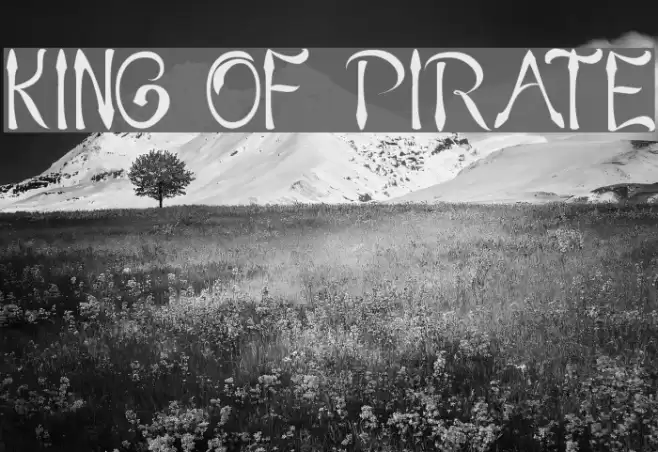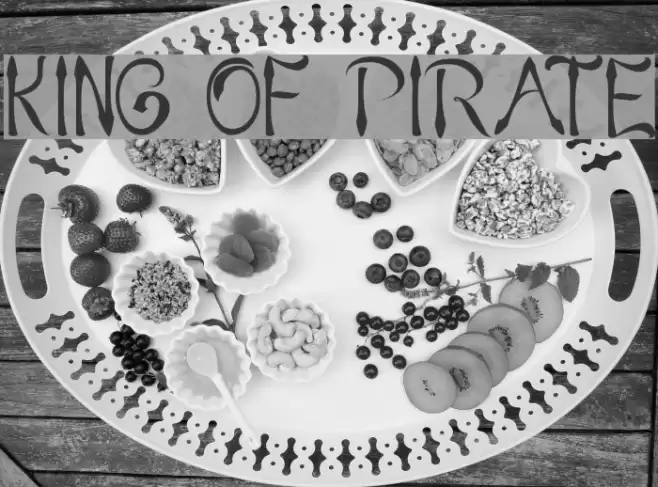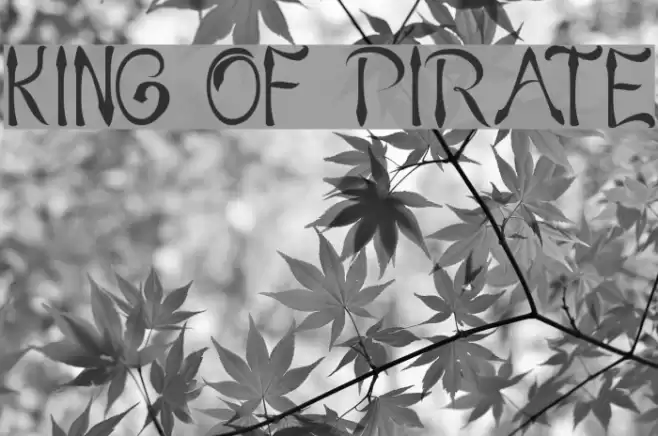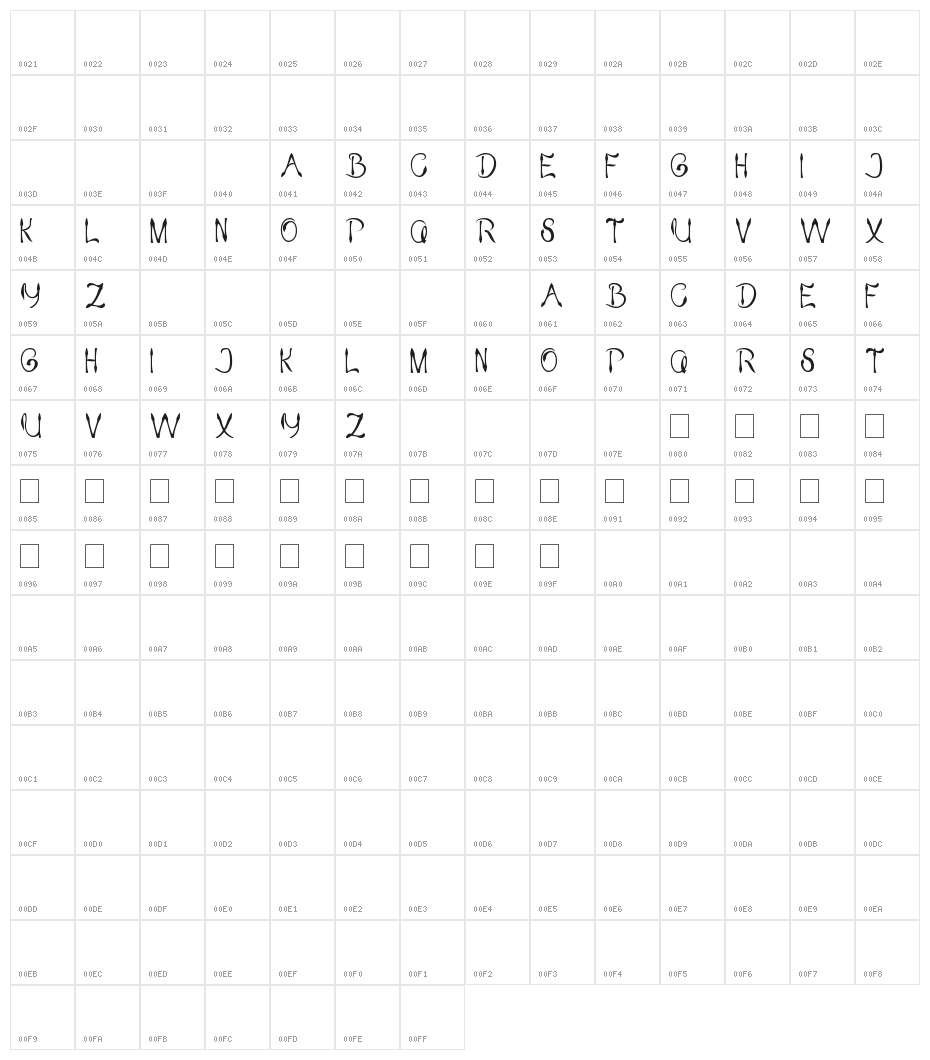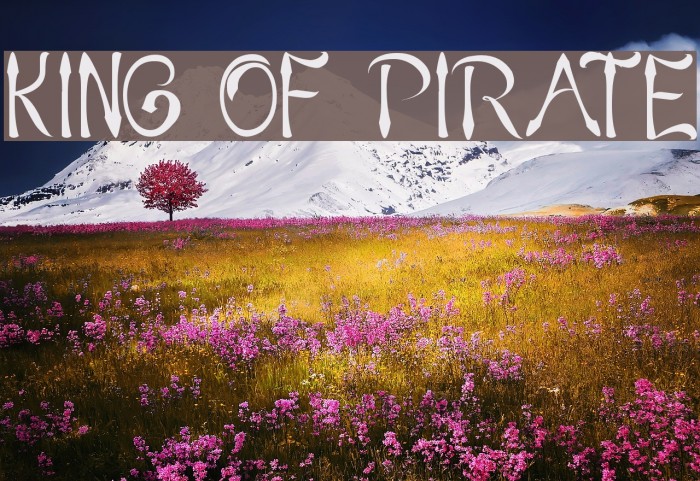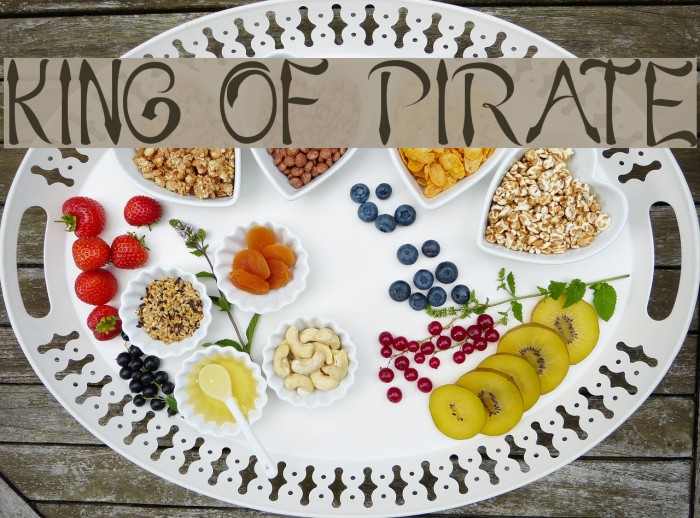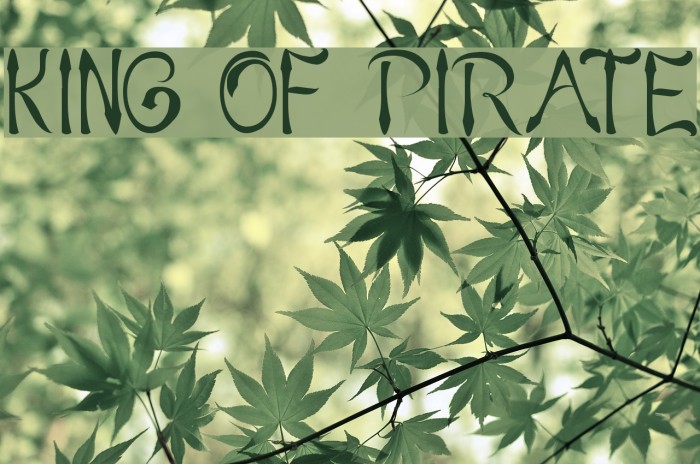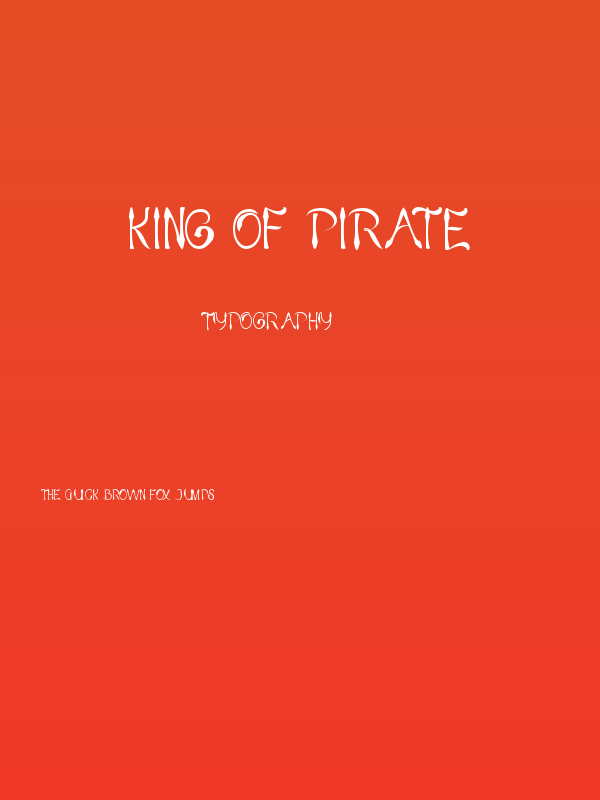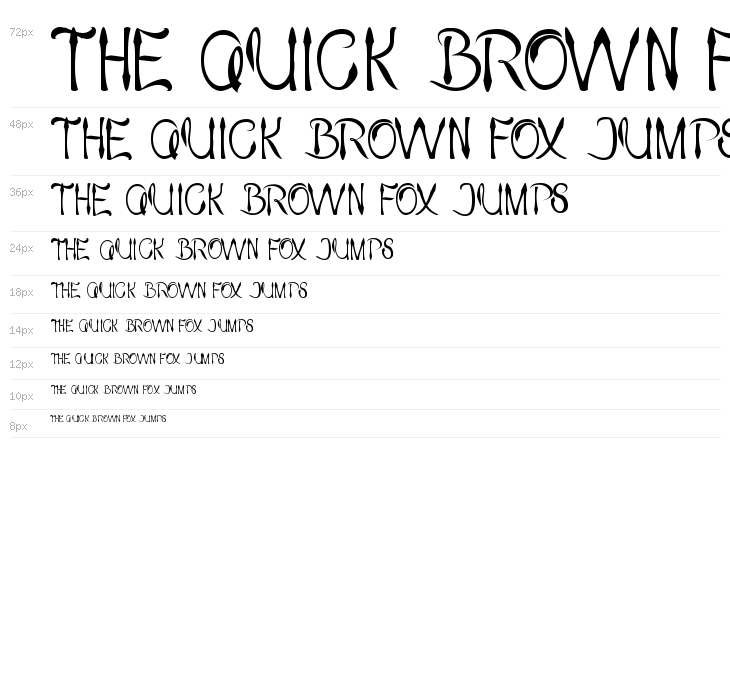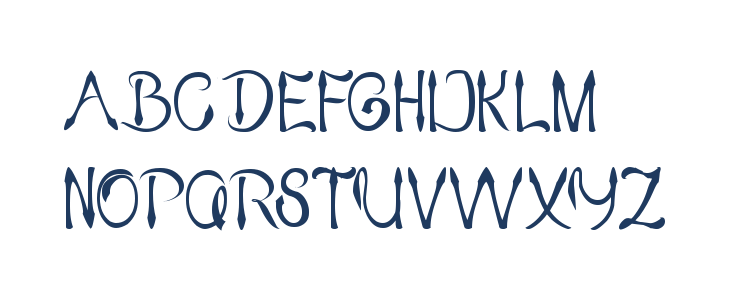
KING OF PIRATE Font
KING OF PIRATE Description
This font features a bold and adventurous style, reminiscent of pirate themes and maritime adventures. The characters are designed with a decorative flair, incorporating sharp edges and swirling elements that evoke a sense of mystery and excitement. The uppercase letters are particularly striking, with unique embellishments that make each character stand out. The overall design is both playful and dramatic, making it suitable for projects that require a touch of fantasy or historical intrigue. The font maintains a consistent weight throughout, ensuring readability while still offering a distinct visual impact.
A bold, decorative font with a pirate-inspired, adventurous style from Uncategorized fonts.
- Proposed Projects: Ideal for themed event posters, book covers, video game titles, and any project needing a nautical or historical flair.